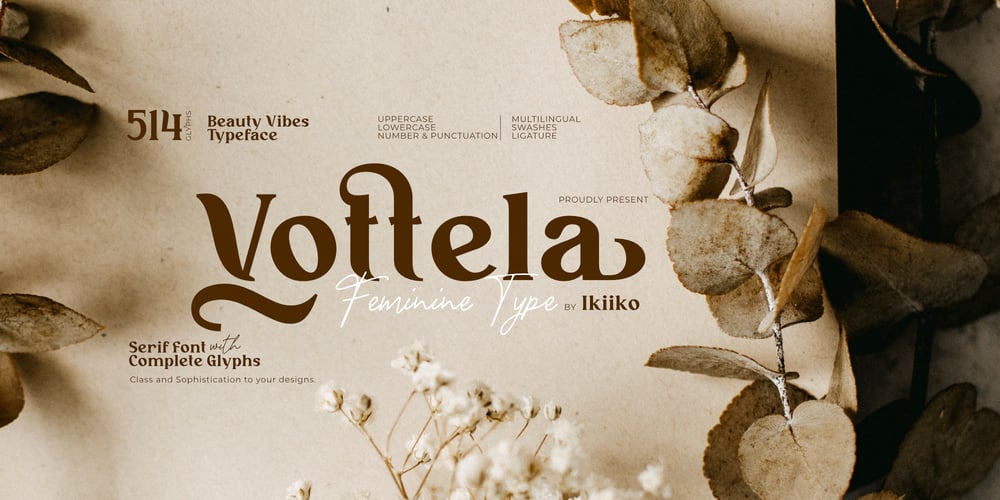
Vottela Font Family was designed by Wahyu Eka Prasetya, Andhika Pradana and published by IKIIKOWRK. Vottela contains 1 styles and family package options. Introducing Vottela – Feminine Type, created by ikiiko.Vottela is a traditional serif typeface with many unique decorative features. You can choose the type of decoration that suits what you need. Vottela also have bold font characters with elegant and feminine shapes. This typeface is perfect for an elegant logo, branding, wedding, invitation, layout magazine, home & decor layout, beauty product, packaging product, quotes, or simply as a stylish text overlay to any background image.What’s included? Uppercase & Lowercase Number & Punctuation Swashes & Ligature Multilingual Support Format File : TTF & OTF Works on PC & Mac Enjoy our font, Cheers!